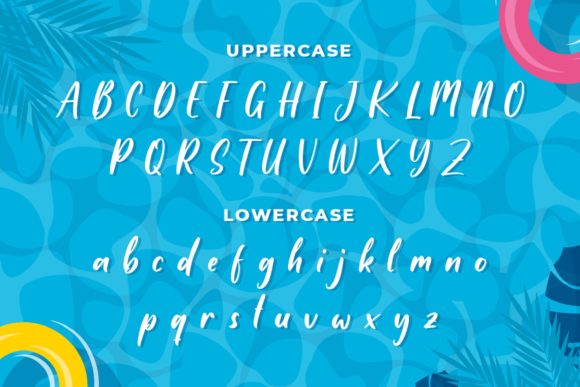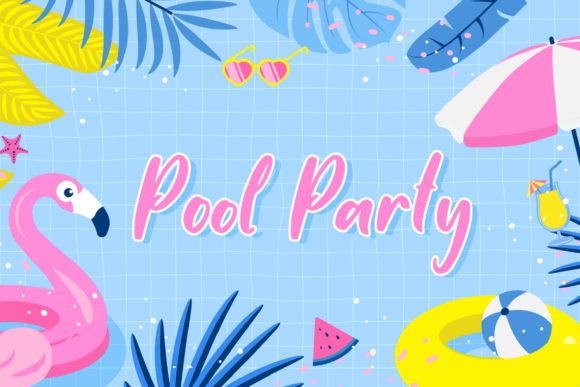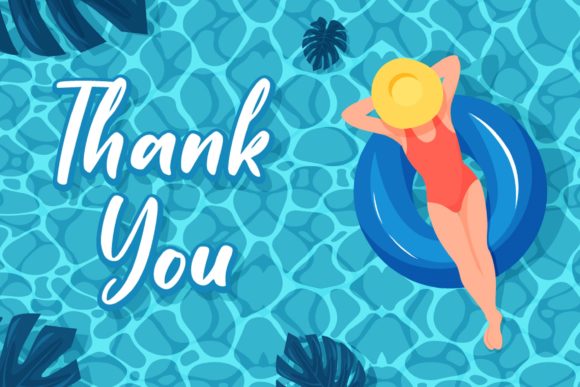
About Sun-kissed Font
Sun-kissed is a gorgeous handwritten font. It will add brightness, modernity, and fun to your designs! Create gorgeous invitations, amazing social media posts, and great logos with Sun-kissed!